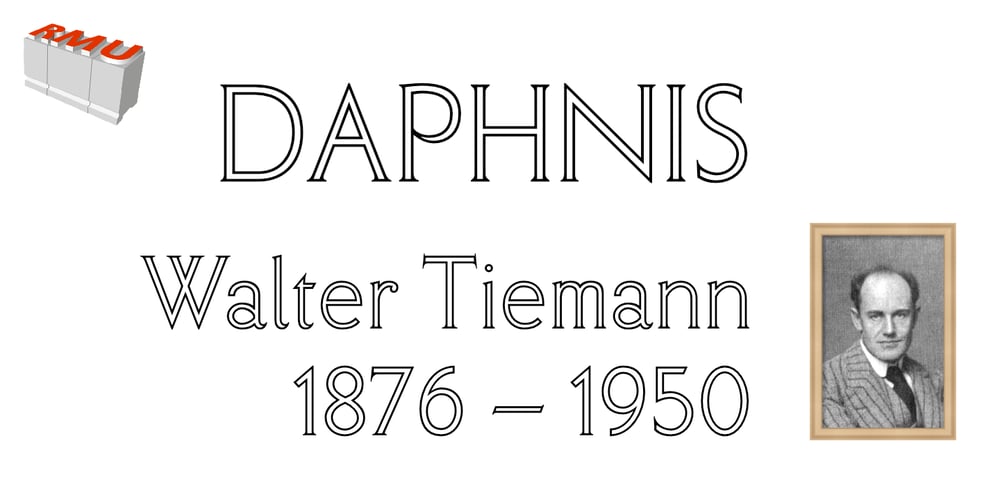
Daphnis Font Family was designed by Ralph M. Unger and published by RMU. Daphnis contains 1 styles and family package options. Walter Tiemann’s elegant display font brought to life again and carefully extended with Baltic, Turkish and Central European character sets.